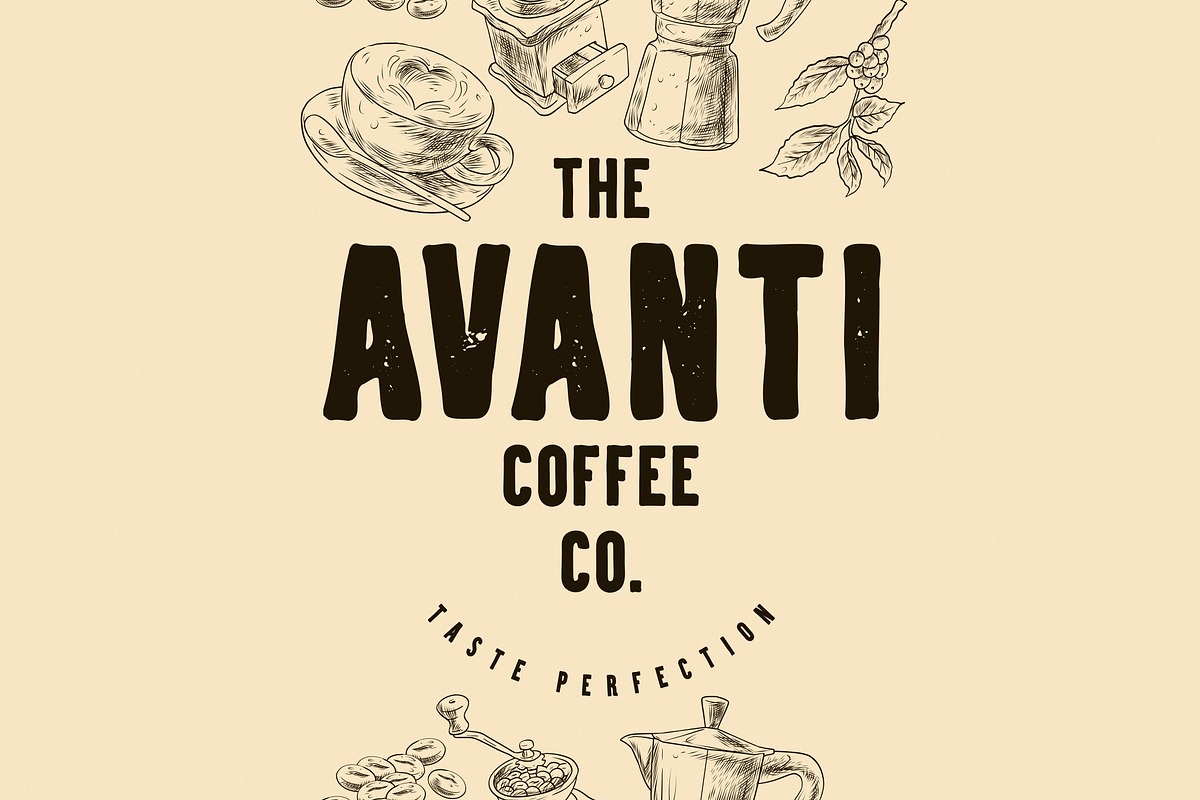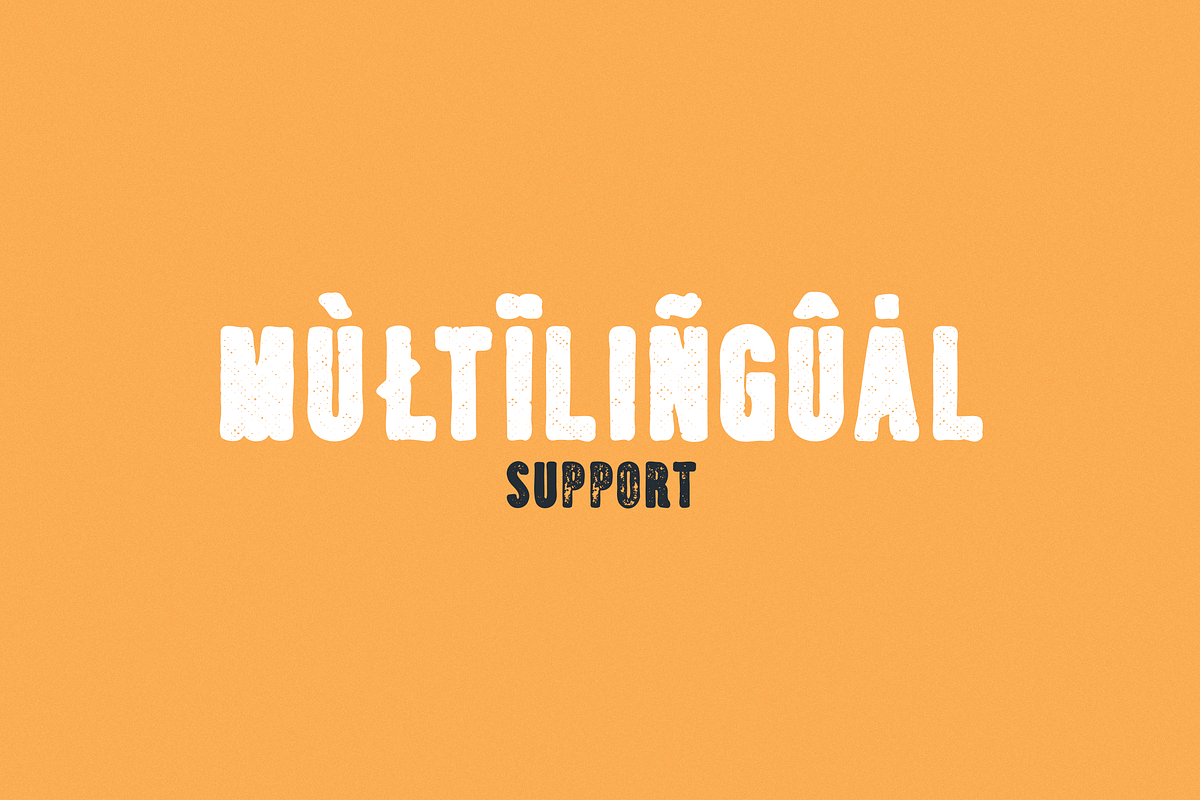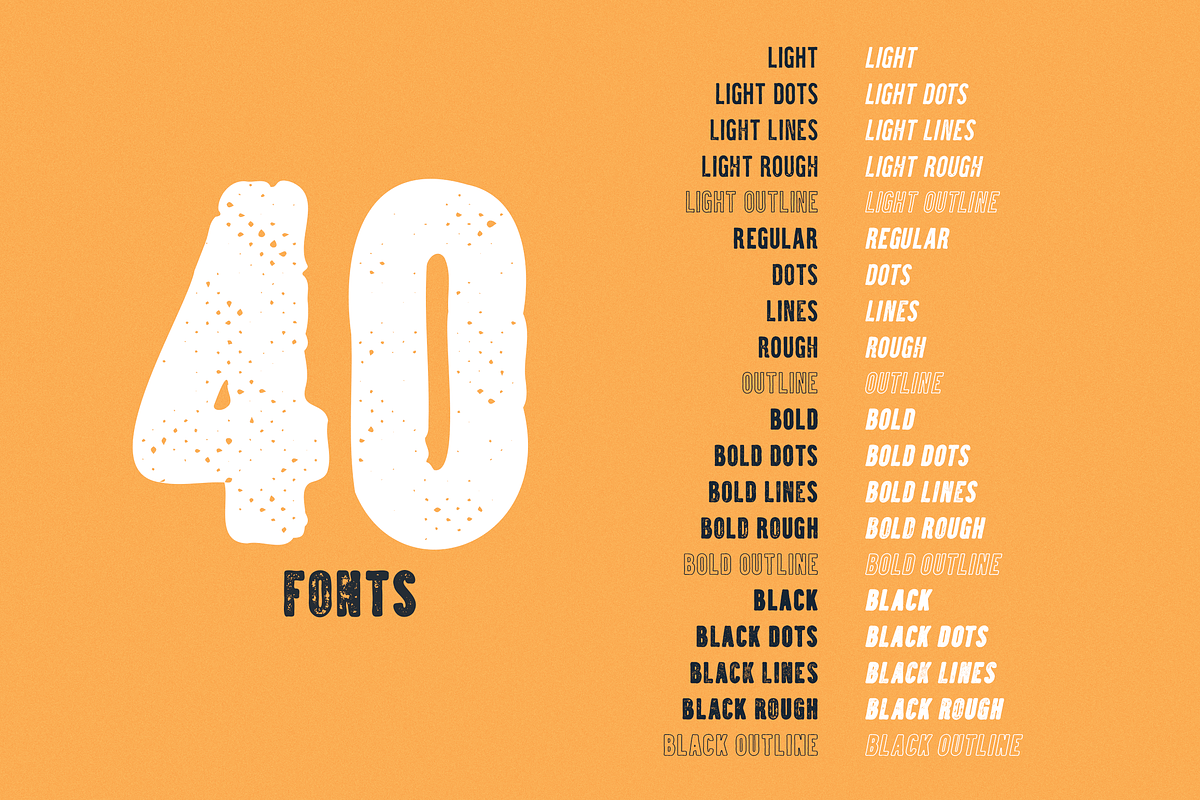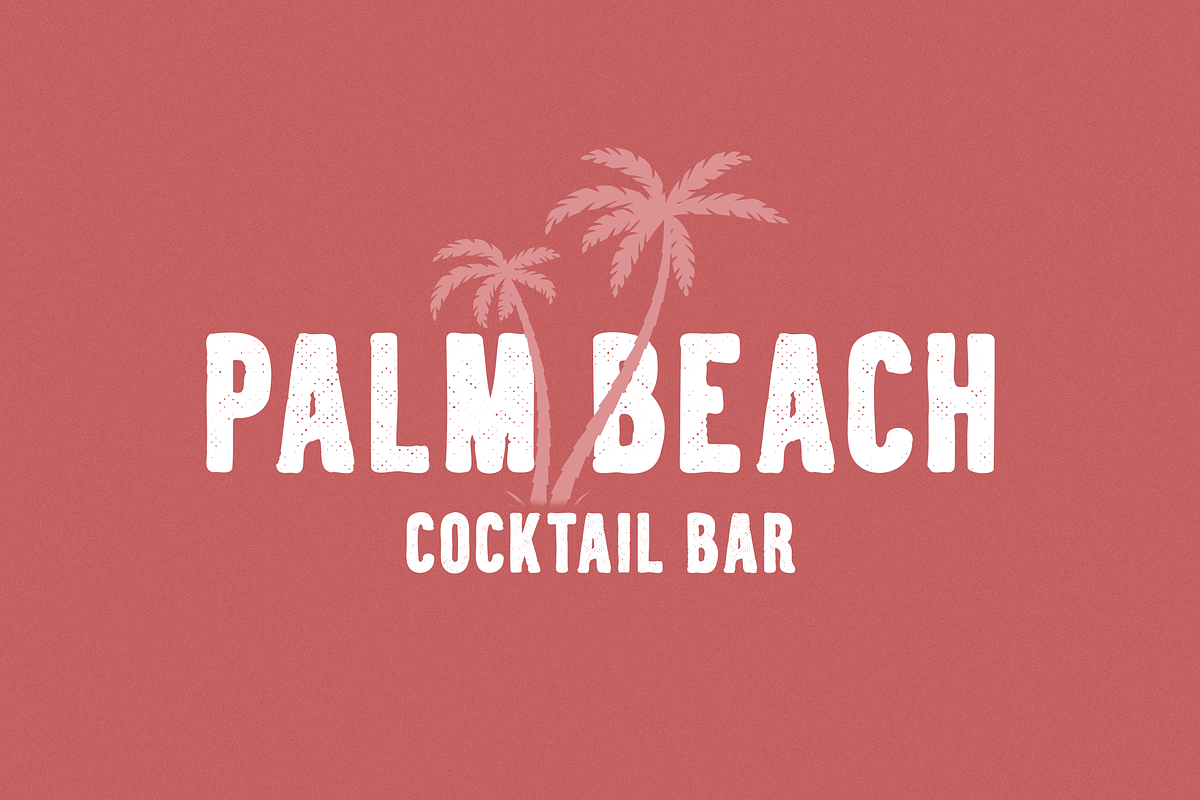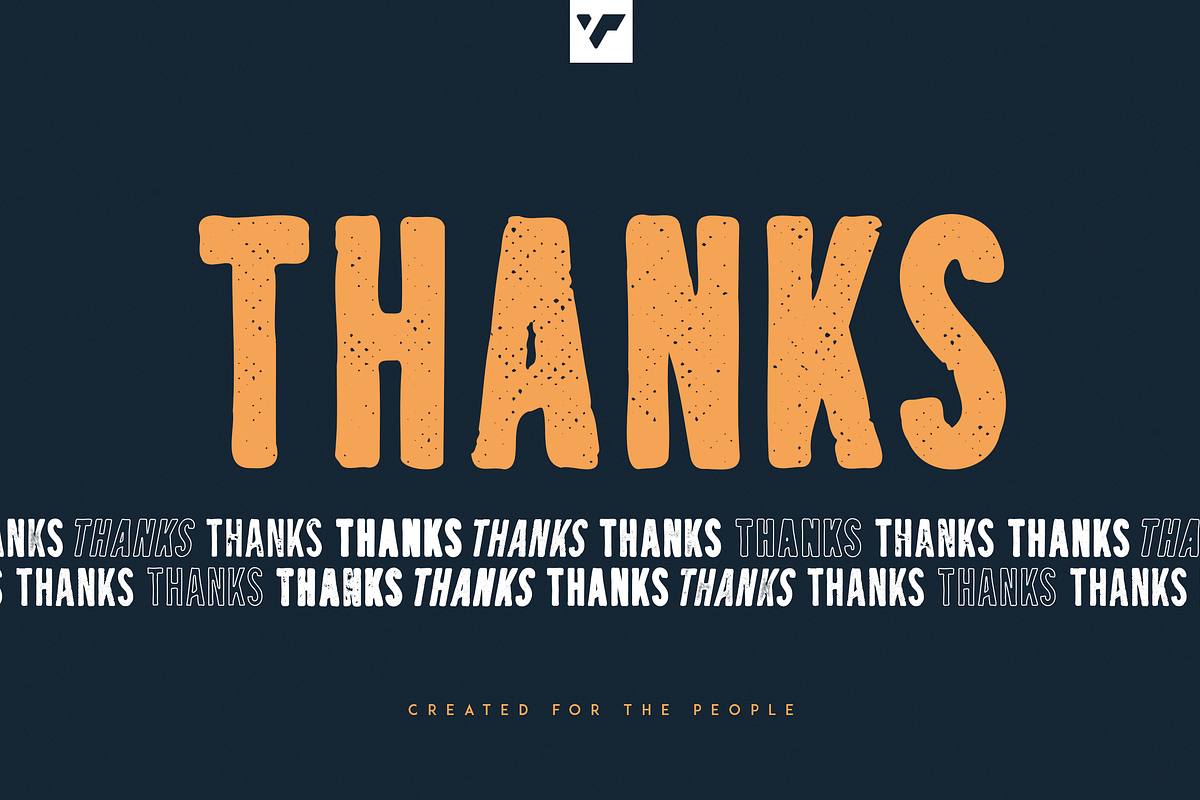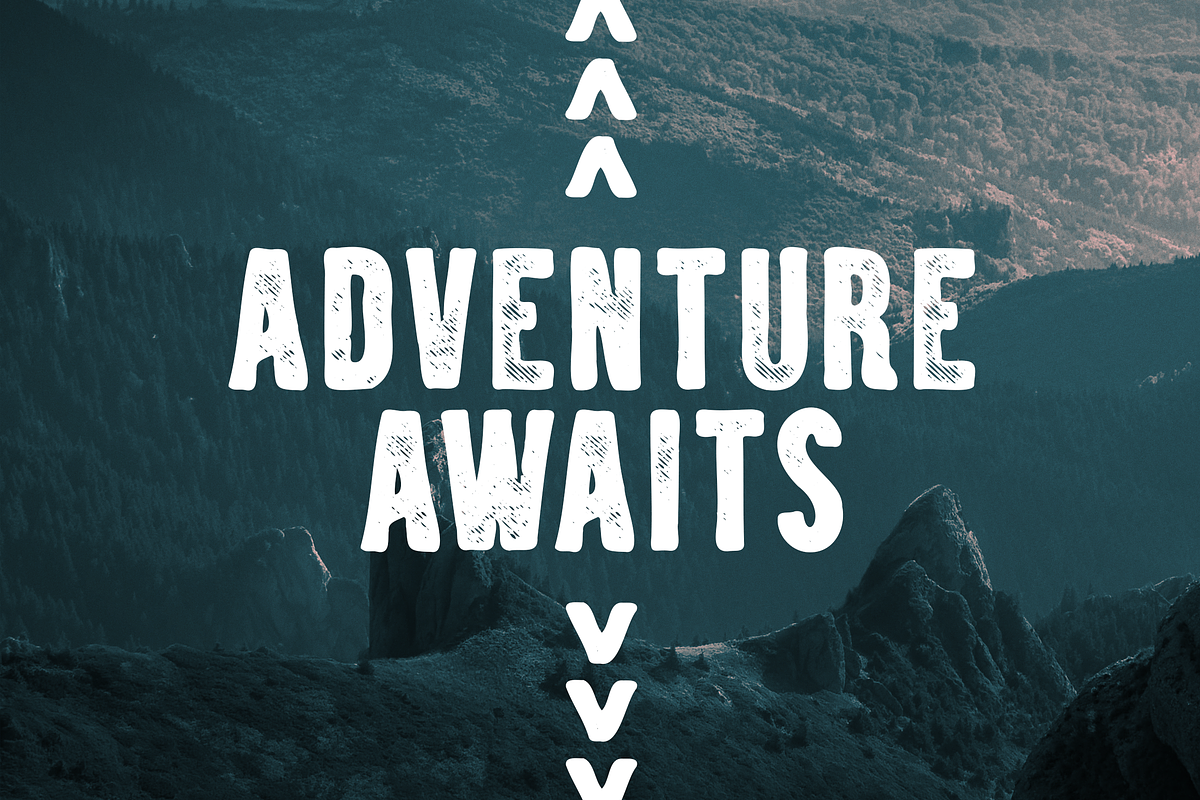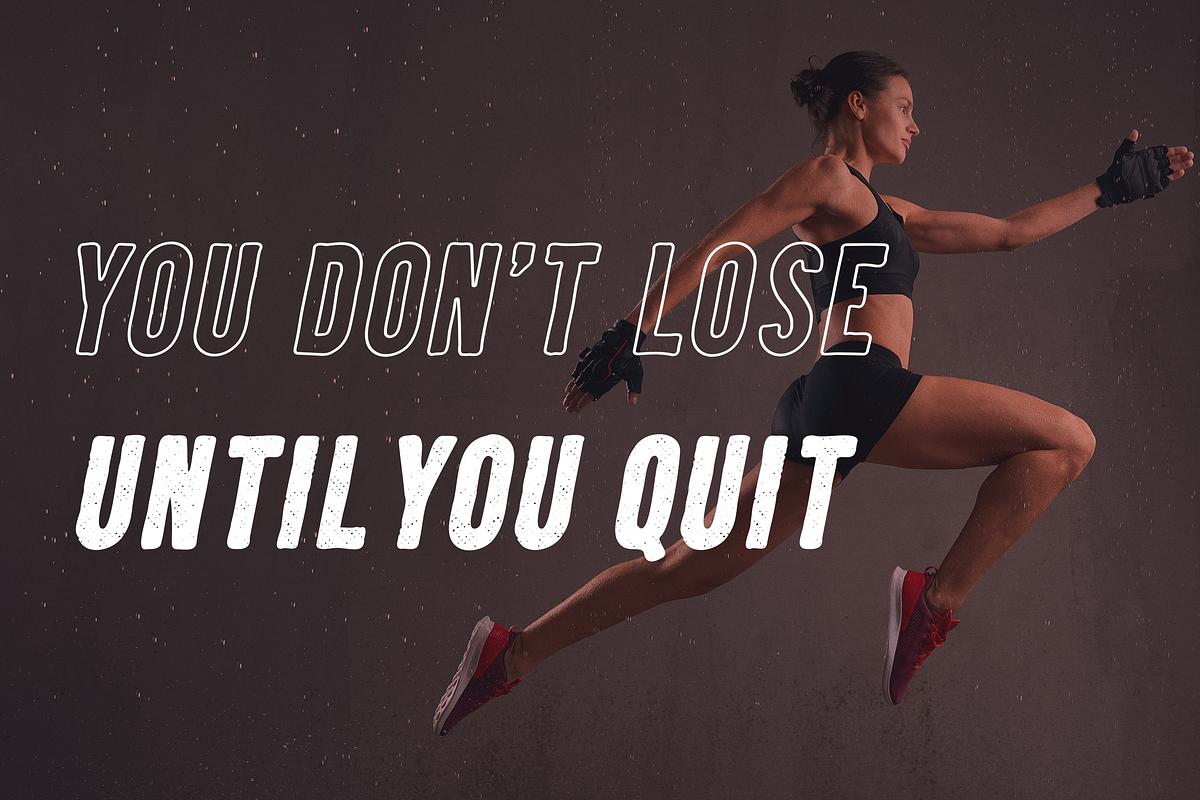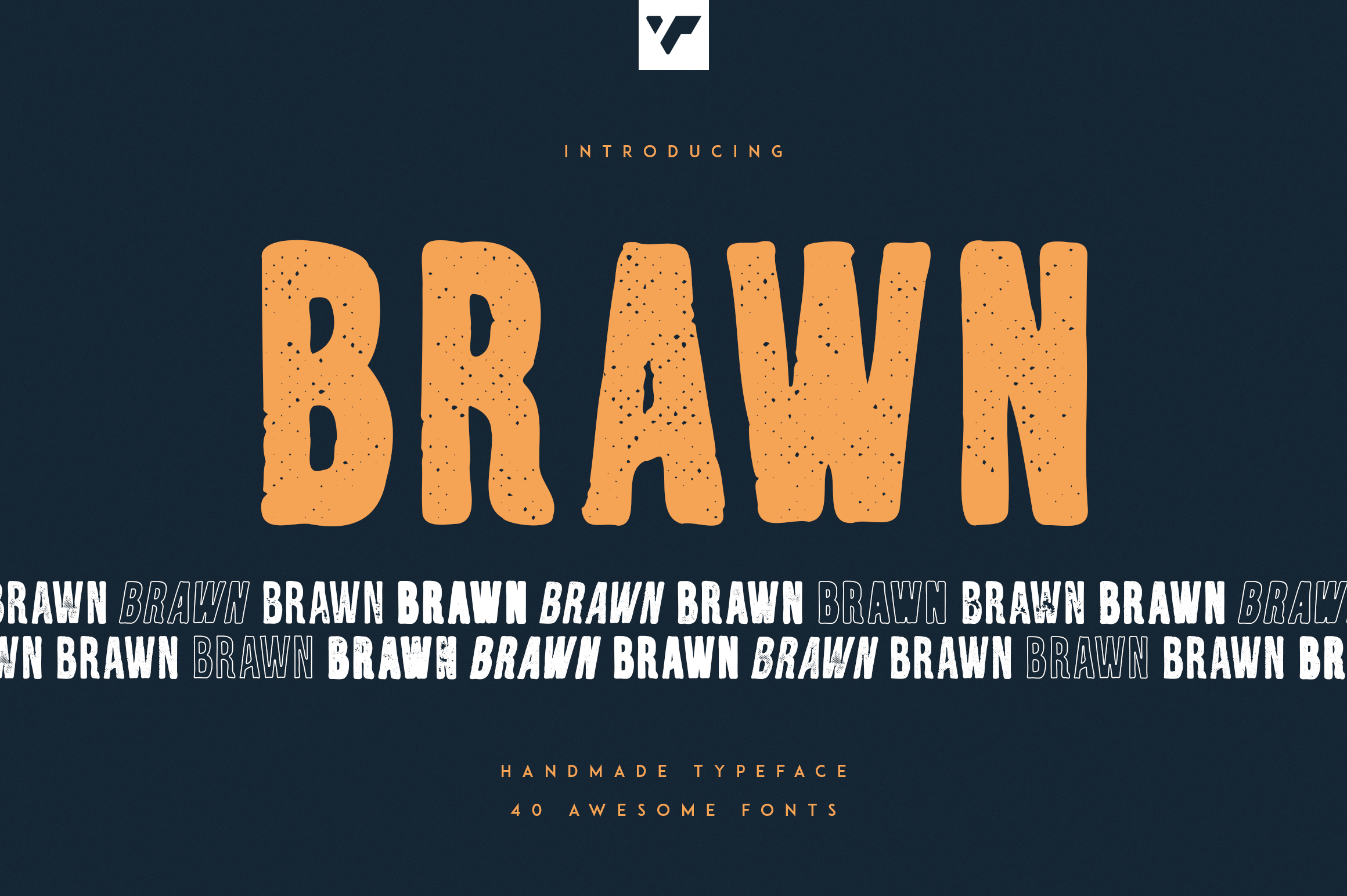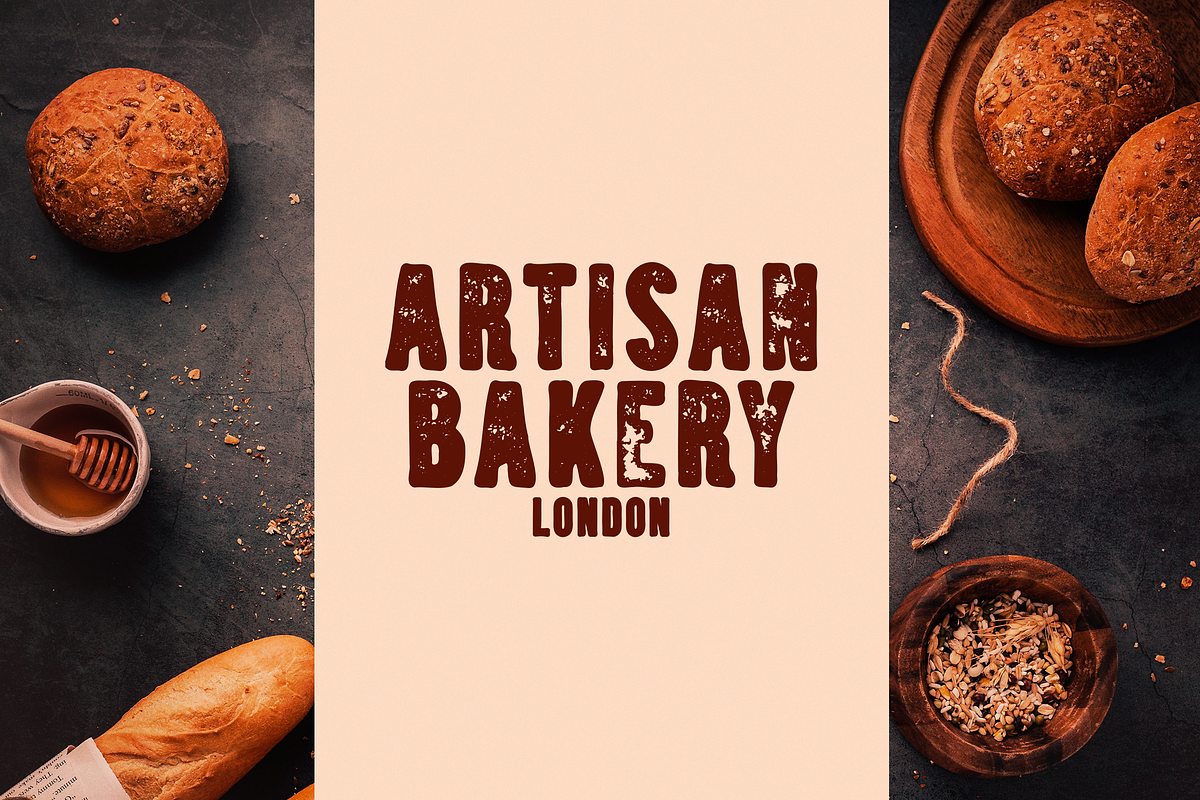
Brawn Handwritten typeface, 40 fonts
Introducing Brawn - Handmade typeface - 40 fonts
Brawn is handwritten and retro typeface loaded with 40 fonts and multilingual support to enchant your next project. Very versatile fonts that works great in large and small sizes.
Brawn is perfect for branding projects, home-ware designs, product packaging, magazine headers - or simply as a stylish text overlay to any background image.
- Light, Regular, Bold, Black
- Dots Light, Regular, Bold, Black
- Lines Light, Regular, Bold, Black
- Rough Light, Regular, Bold, Black
- Outline Light, Regular, Bold, Black
- Italic Light, Regular, Bold, Black
- Italic Dots Light, Regular, Bold, Black
- Italic Lines Light, Regular, Bold, Black
- Italic Rough Light, Regular, Bold, Black
- Italic Outline Light, Regular, Bold, Black
- Uppercase, numeral, punctuation & Symbol